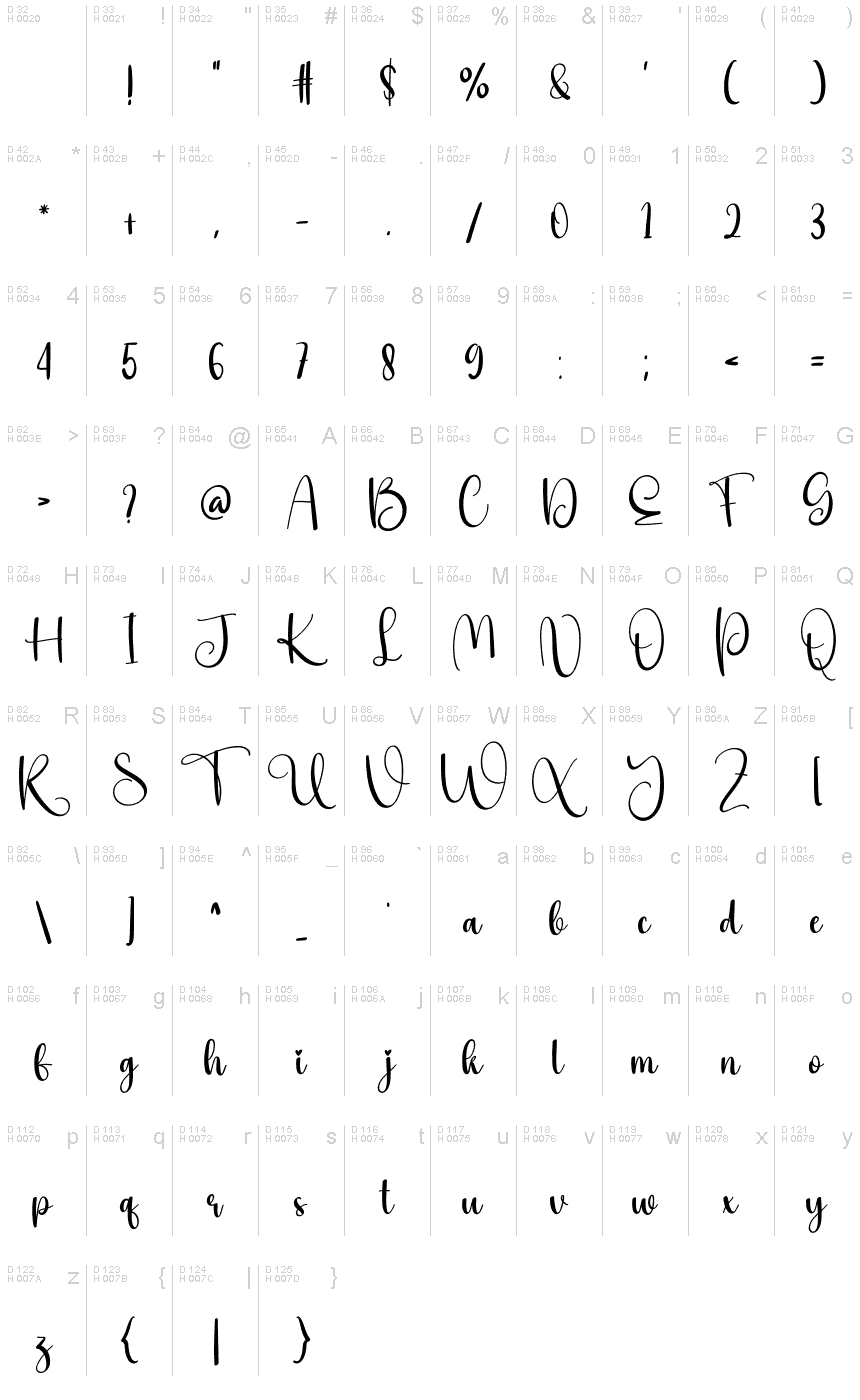
Lightbox
Lightbox, a delightful calligraphy font designed by Scratchones, brings an air of elegance to any project.
With its semi-light weight and semi-condensed width, this font is perfect for wedding invitations, love letters, and romantic blogs. The flowing strokes and graceful curves of Lightbox add a touch of sophistication to branding materials, such as luxury fashion labels or high-end beauty products. Whether you're designing a heartfelt greeting card or creating eye-catching social media graphics, Lightbox will effortlessly captivate your audience with its charming and refined aesthetic.